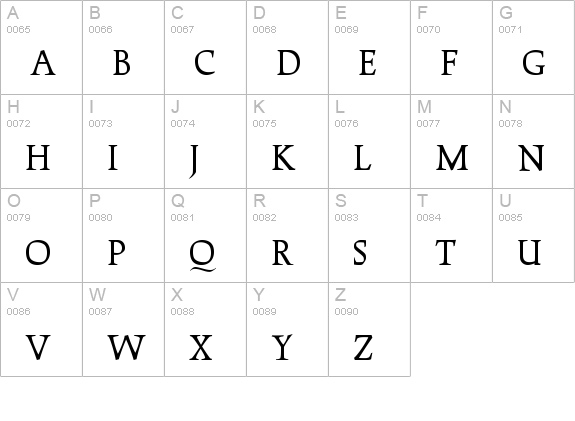
OPTICather Font Details
Introducing OPTICather font, a modern and stylish typeface that exudes sophistication and elegance. With its clean lines and sleek design, OPTICather is perfect for a wide range of design projects, from branding to packaging and everything in between. This versatile font is sure to make your text stand out and leave a lasting impression on your audience. What's even better is that OPTICather font is completely free! Yes, you read that right - this stunning font is available for download at FontsMarket.com at no cost. Whether you're a professional designer or just someone looking to add a touch of class to your projects, OPTICather is the perfect choice. Don't miss out on this amazing opportunity to enhance your designs with this beautiful and free font. Download OPTICather today and take your creations to the next level!